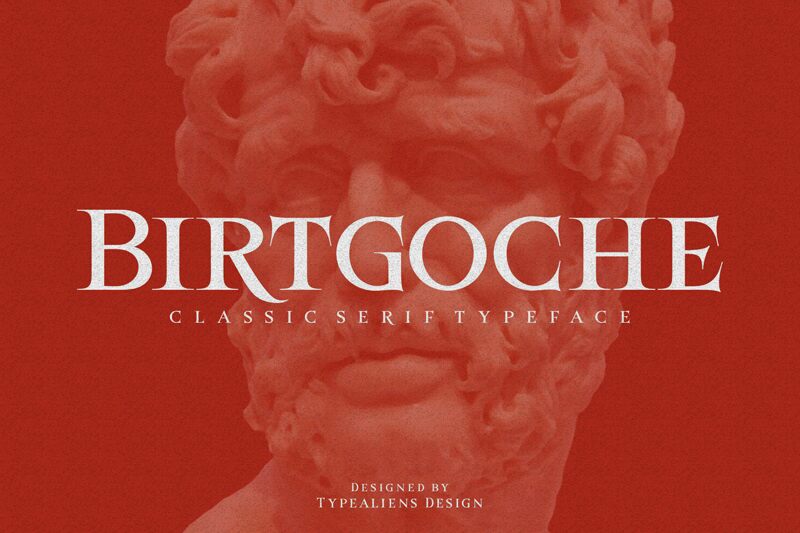
Birtgoche, designed by TypeAliens, is a striking serif font that exudes elegance and sophistication. Its pronounced serifs and balanced letterforms create a harmonious blend of classic and contemporary styles. The bold yet refined characteristics of Birtgoche make it visually captivating, perfect for commanding attention.
Ideal for high-end branding, editorial design, or luxurious invitations, Birtgoche brings a touch of timeless beauty to any project. Its distinctive aesthetic lends itself well to both print and digital applications where an air of refinement is desired.